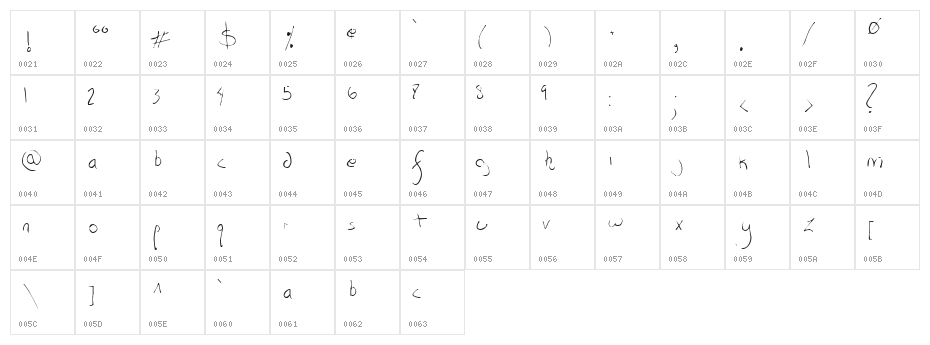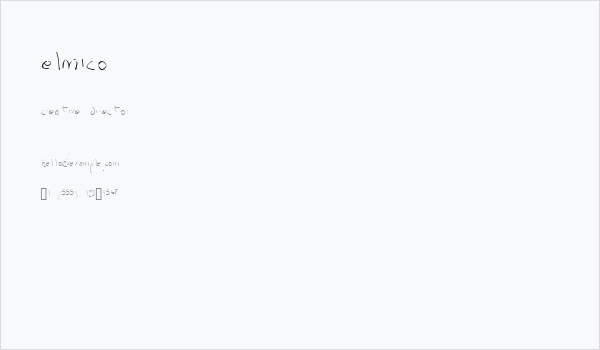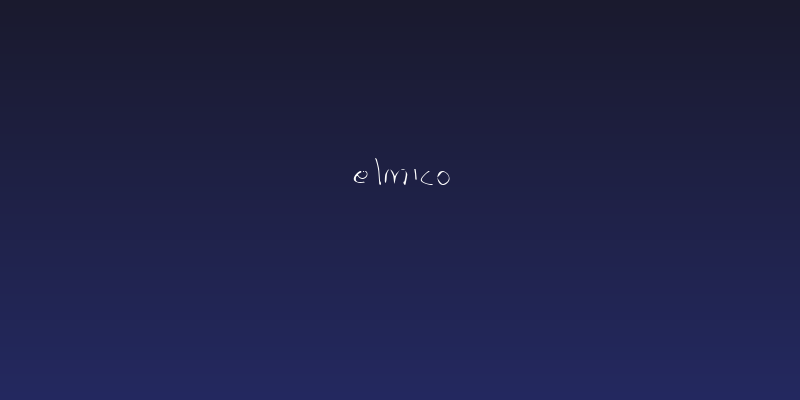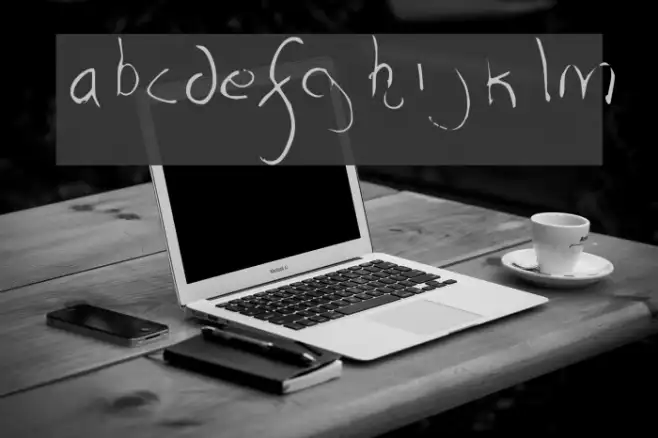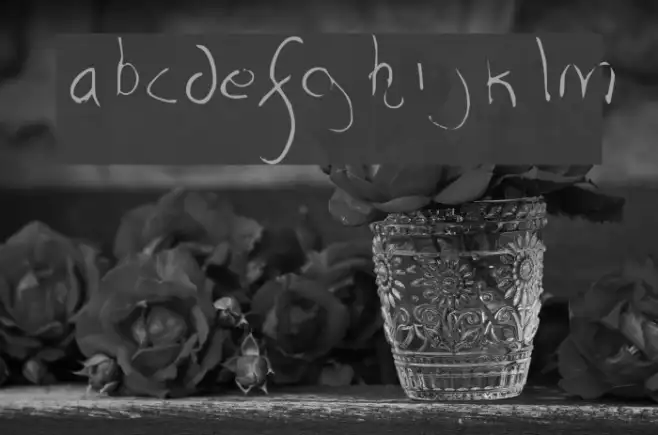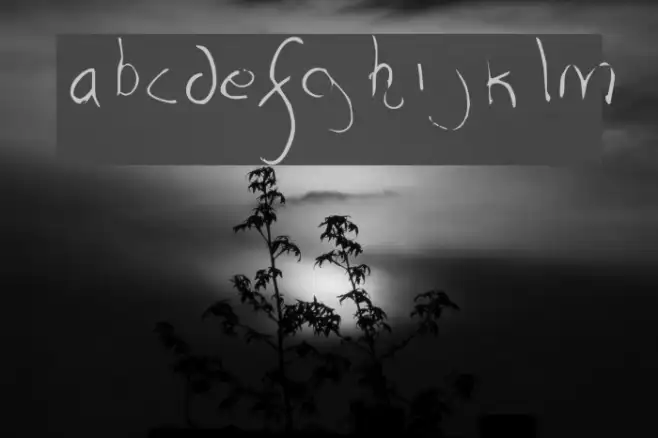
elmico Font
elmico Description
This font exhibits a unique, handwritten style with a playful and artistic flair. The characters are irregular and fluid, giving a sense of spontaneity and creativity. The strokes vary in thickness, adding a dynamic and lively feel to the text. The lowercase letters have a whimsical quality, with some characters featuring loops and swirls that enhance the font's artistic nature. The uppercase letters maintain a similar style, ensuring consistency throughout. Numbers and special characters are crafted with the same attention to detail, making them blend seamlessly with the alphabet. This font is perfect for projects that require a personal touch or an informal, creative vibe.
| Use Case | Logos, Artistic projects, Informal communications |
| Proposed Projects | Ideal for greeting cards, invitations, artistic posters, and creative branding projects. |